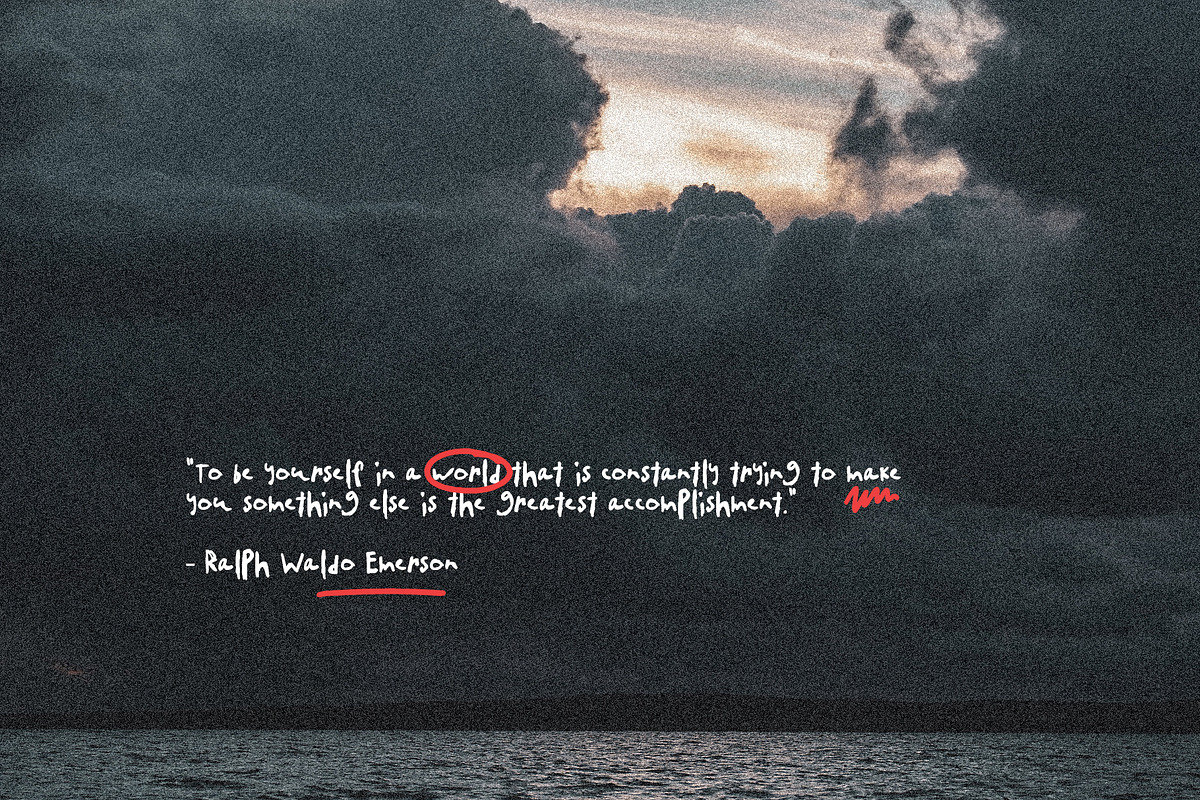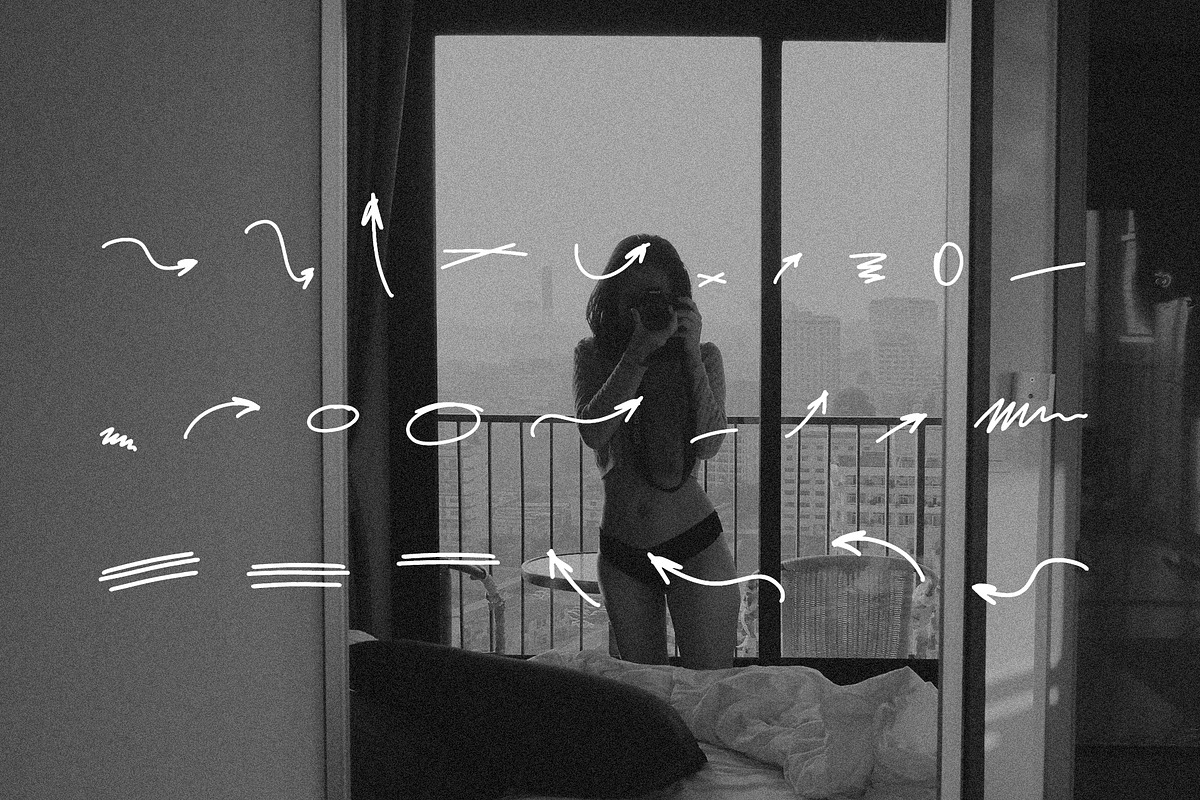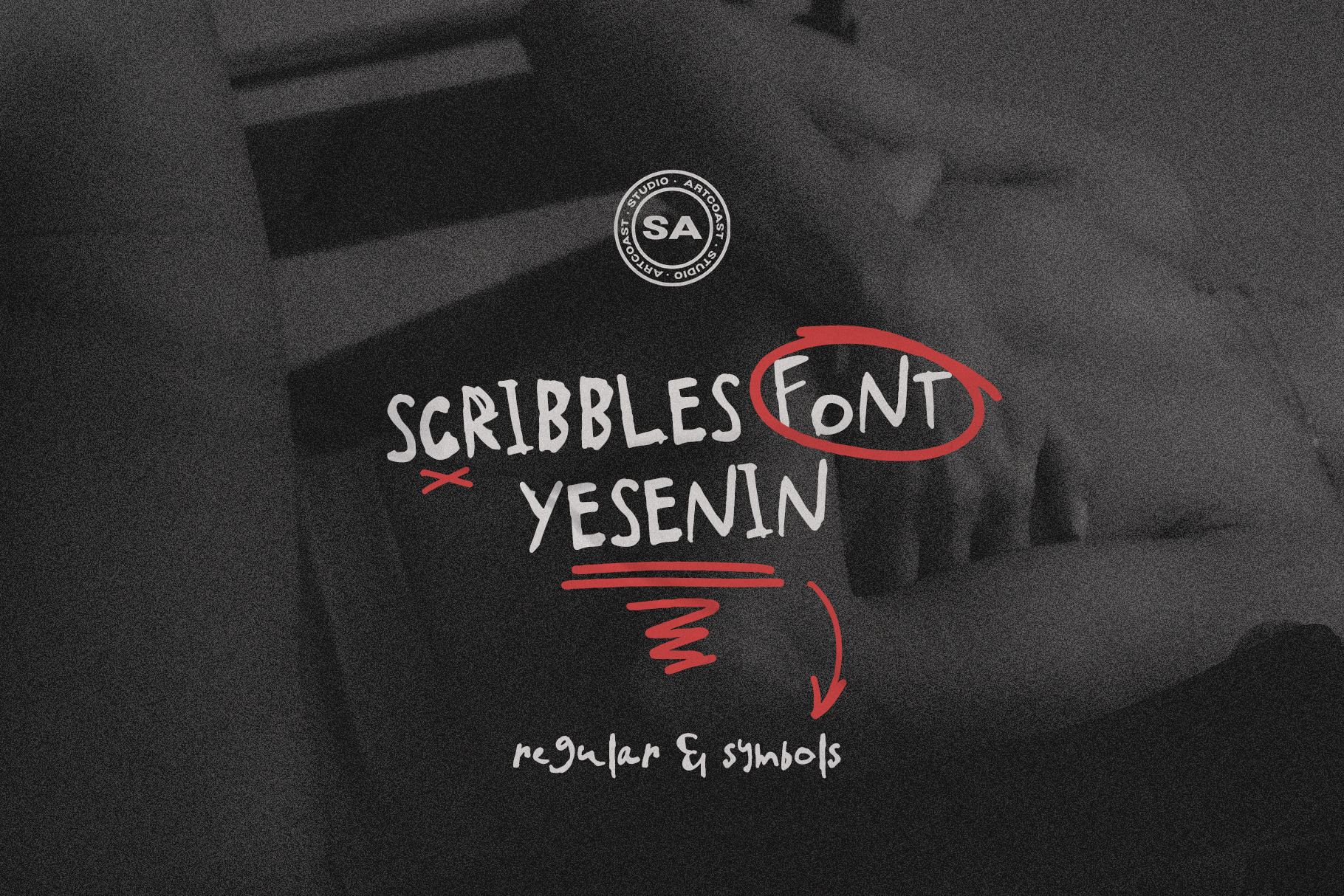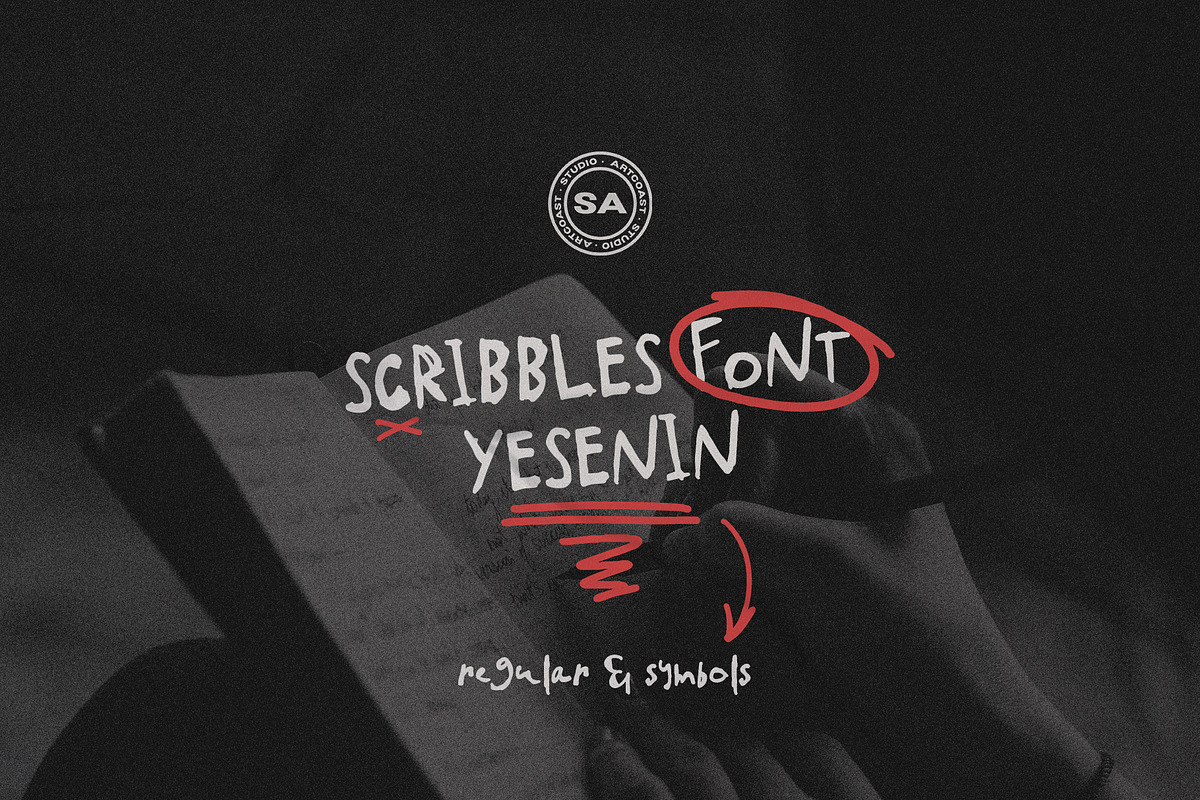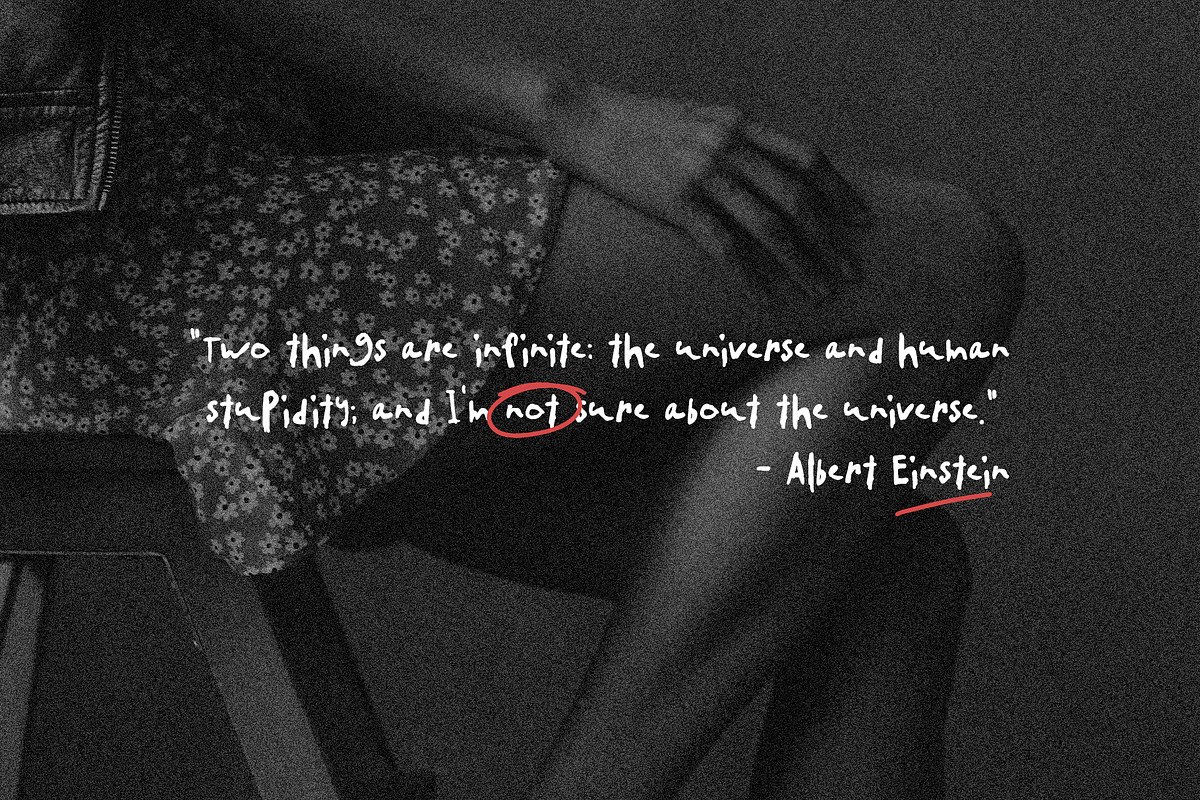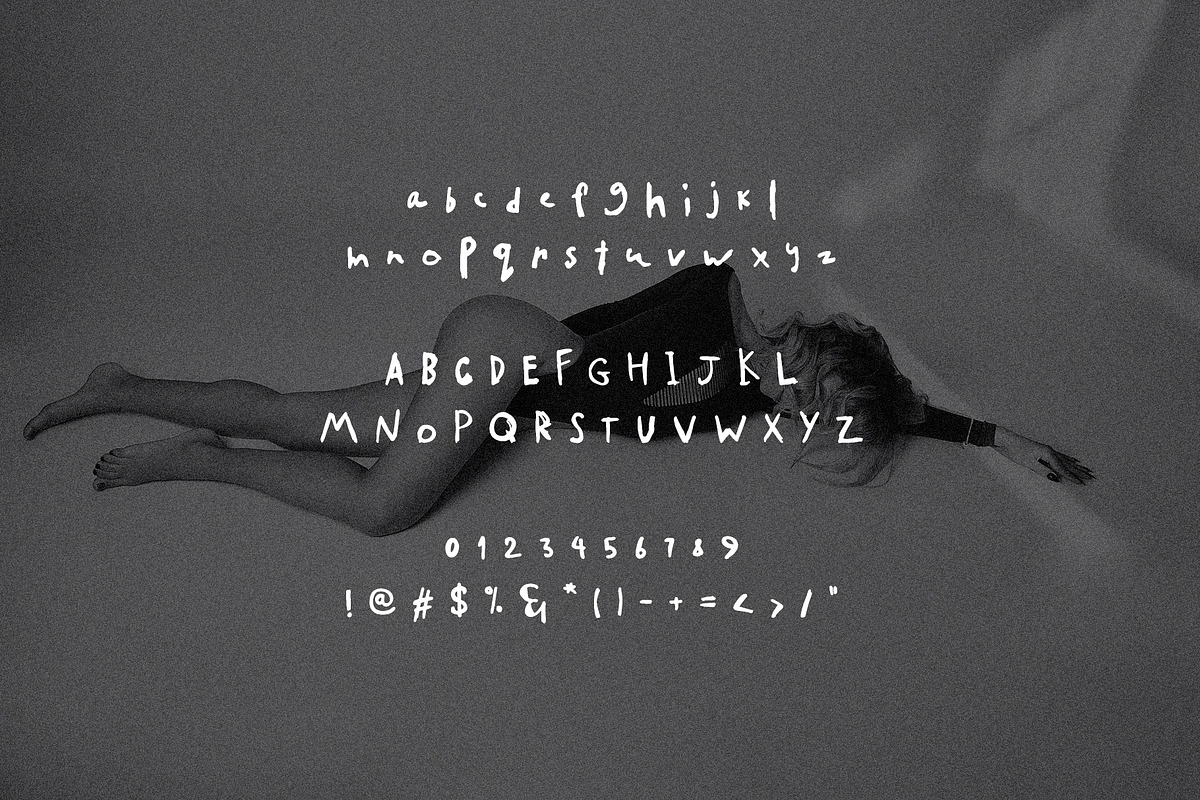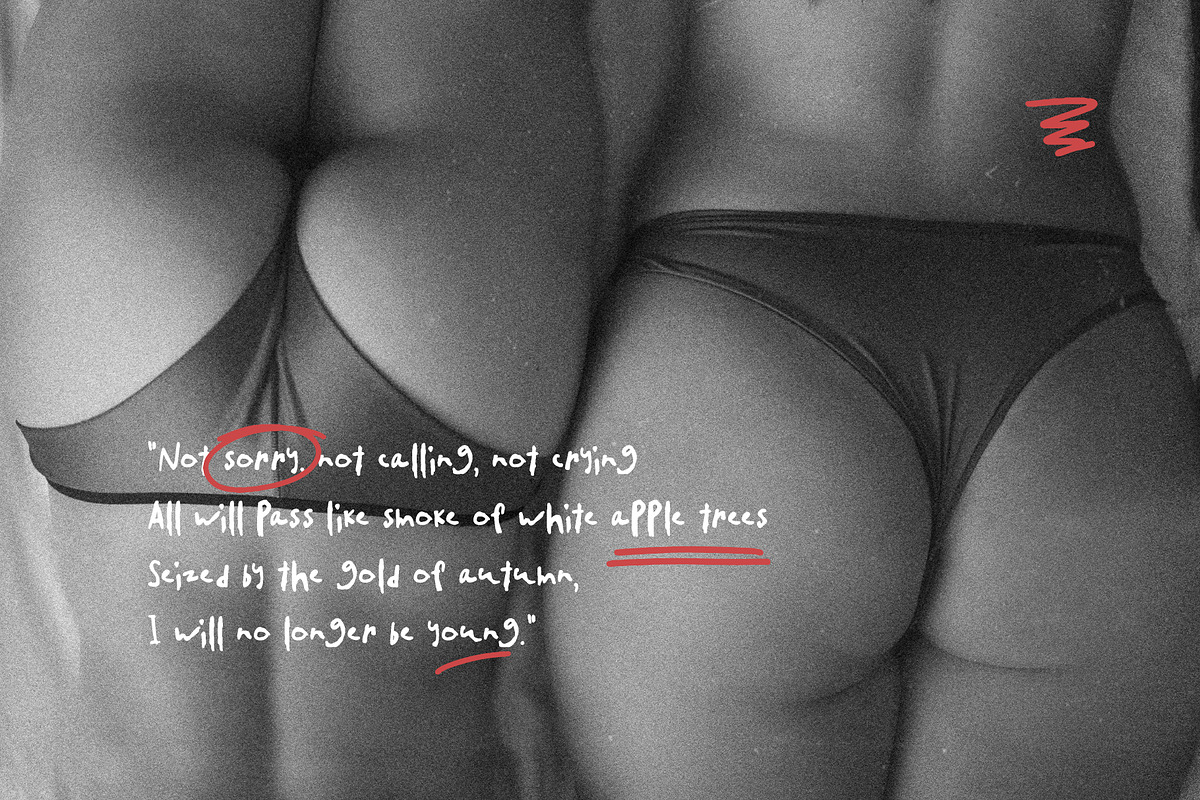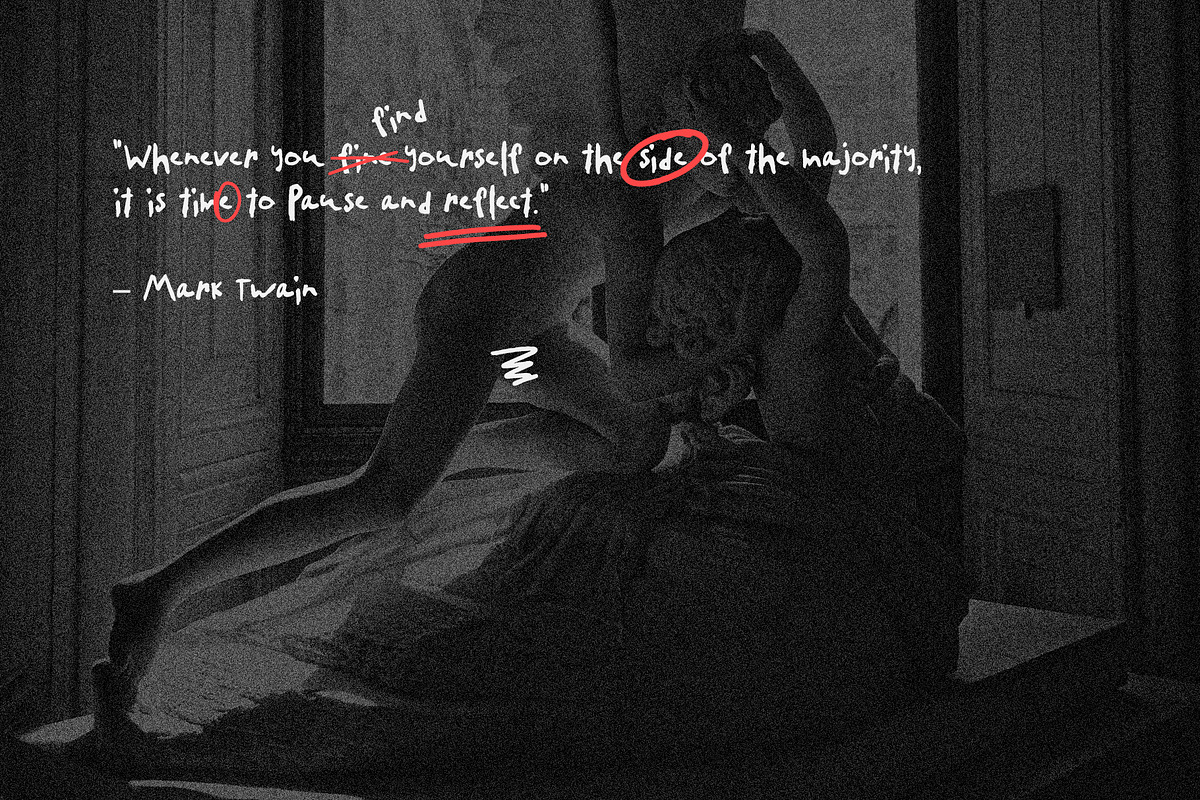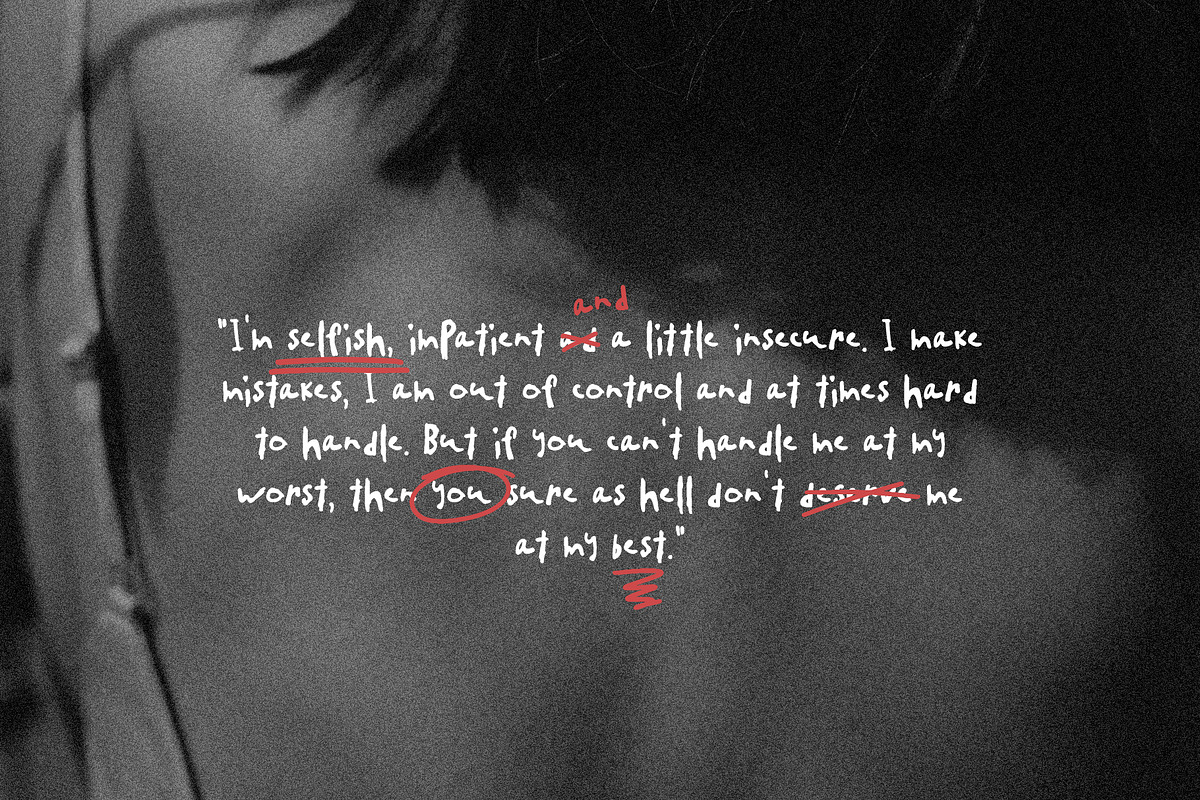
SA Yesenin Scribble Handwritten Font
SA Yesenin is an expressive handwritten display font with rough, spontaneous letterforms and a companion set of hand-drawn symbols. Its uneven strokes and authentic marker-like rhythm create an intimate, rebellious look for editorial graphics, fashion posters, album artwork, social posts, quotes, zines, branding, packaging, and event designs.
SA Yesenin Regular — uppercase, lowercase, numerals, and punctuation
SA Yesenin Symbols — arrows, circles, underlines, crosses, and scribble accents
Use the regular style for headlines and short text, then layer the symbol font to circle words, add arrows, underline phrases, or build expressive compositions. The fonts work with Adobe Photoshop, Illustrator, InDesign, Microsoft Word, and other applications that support OTF files.